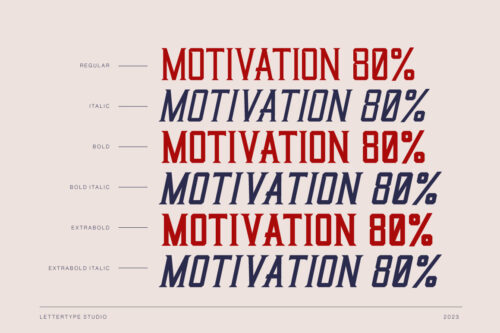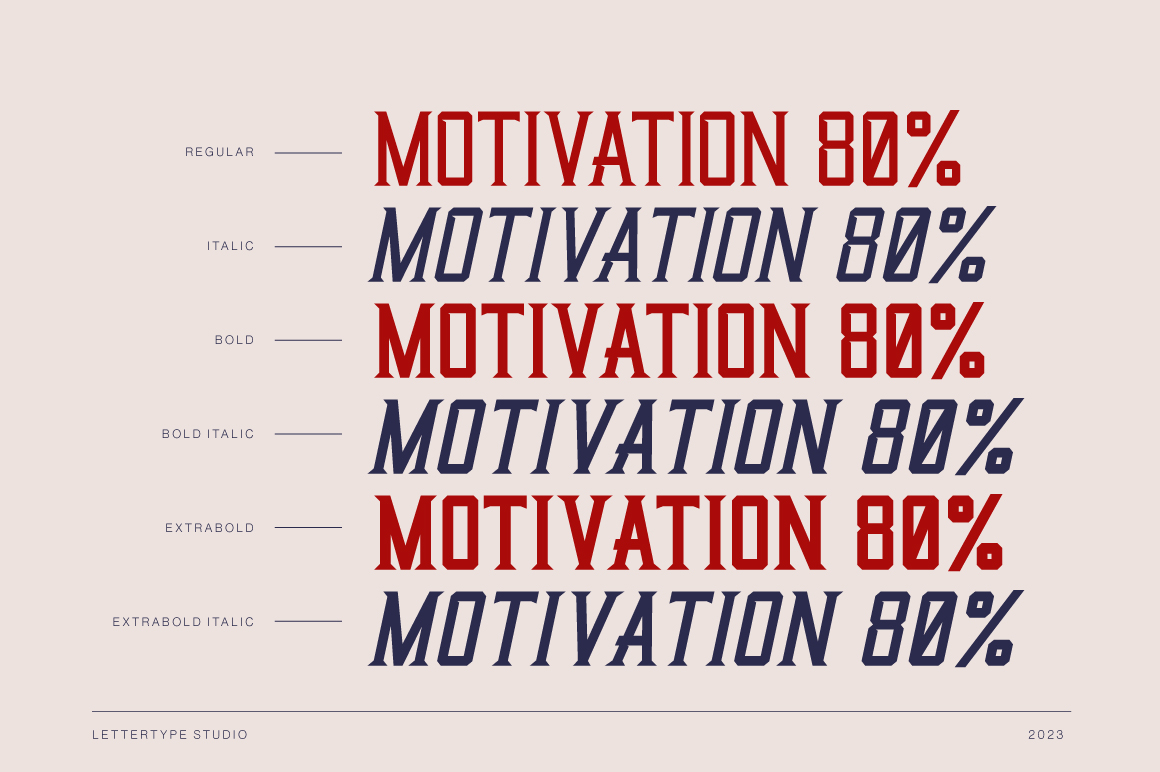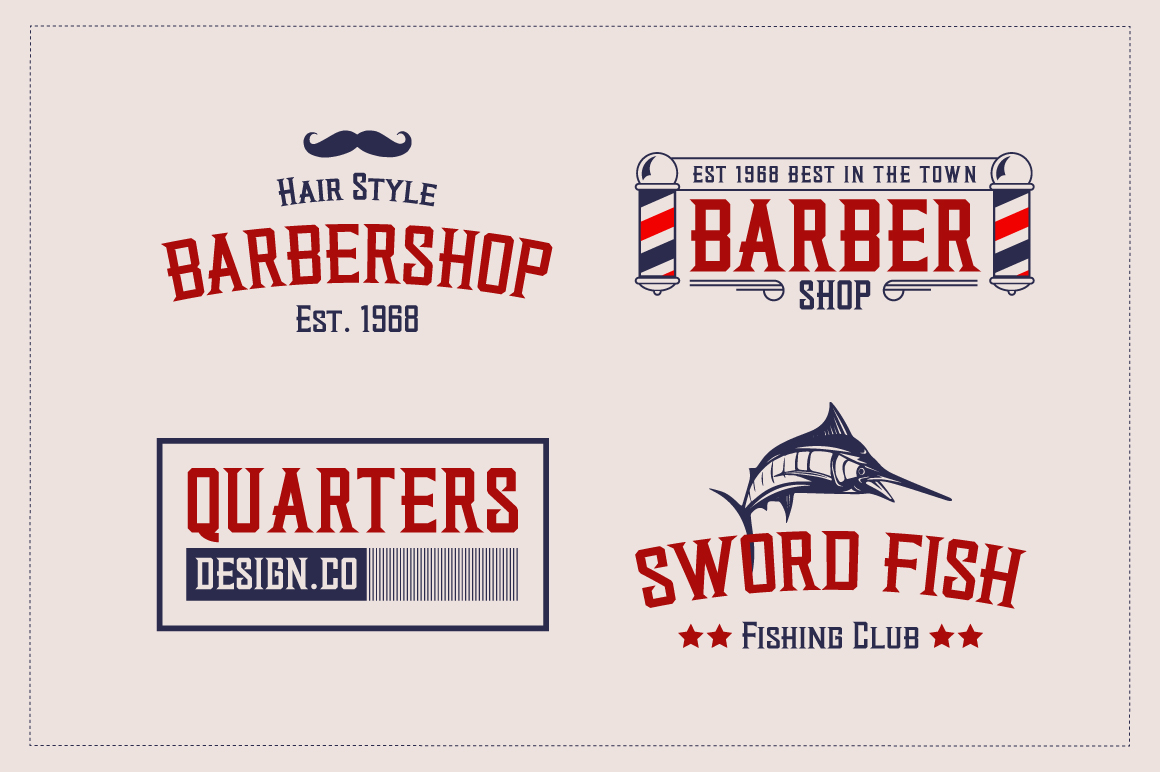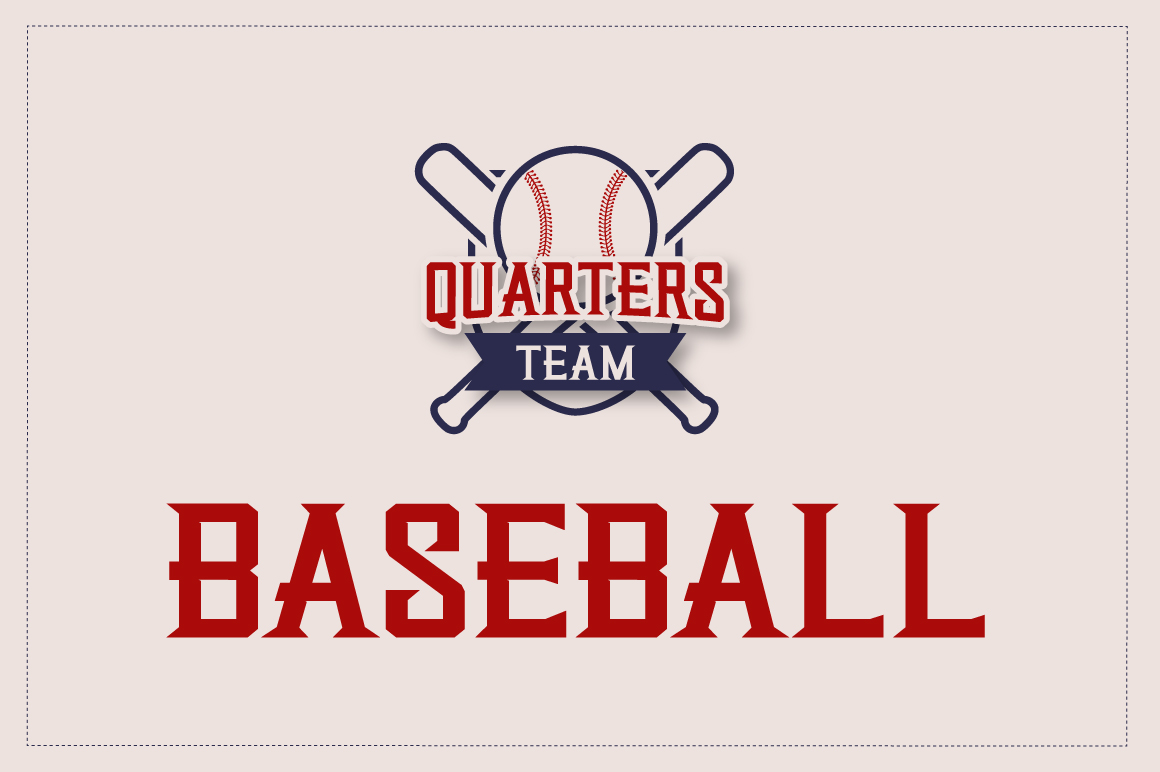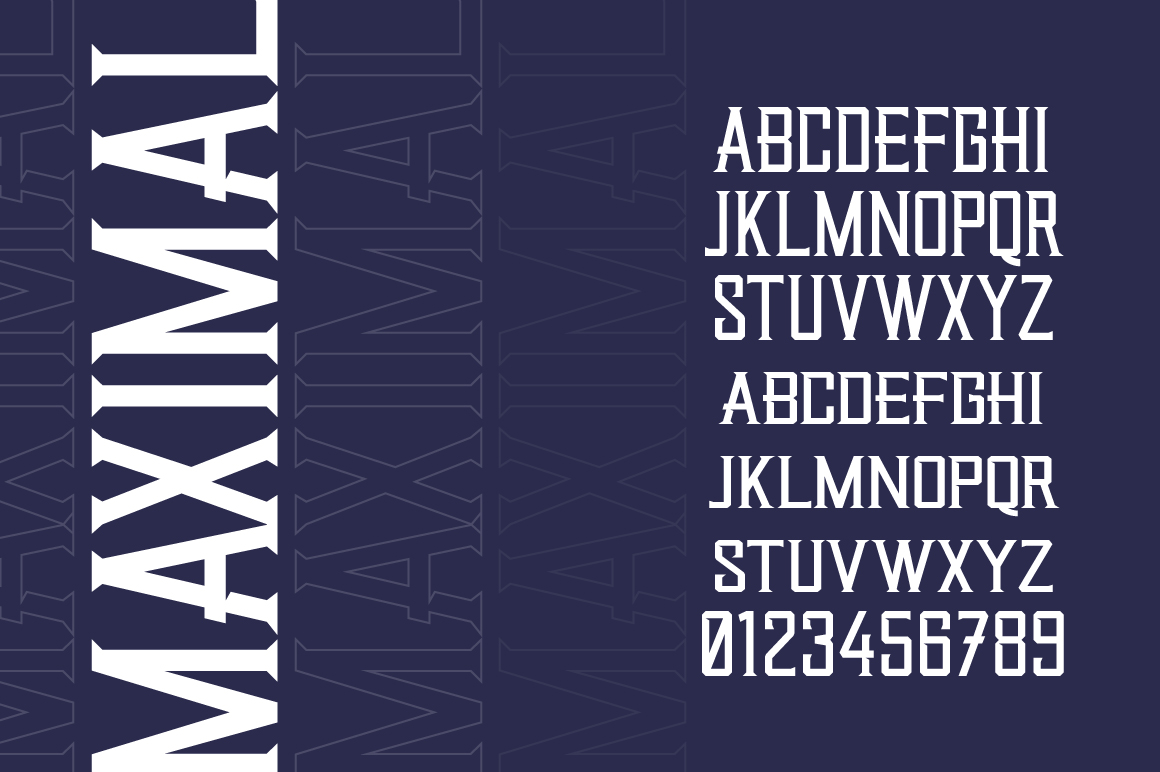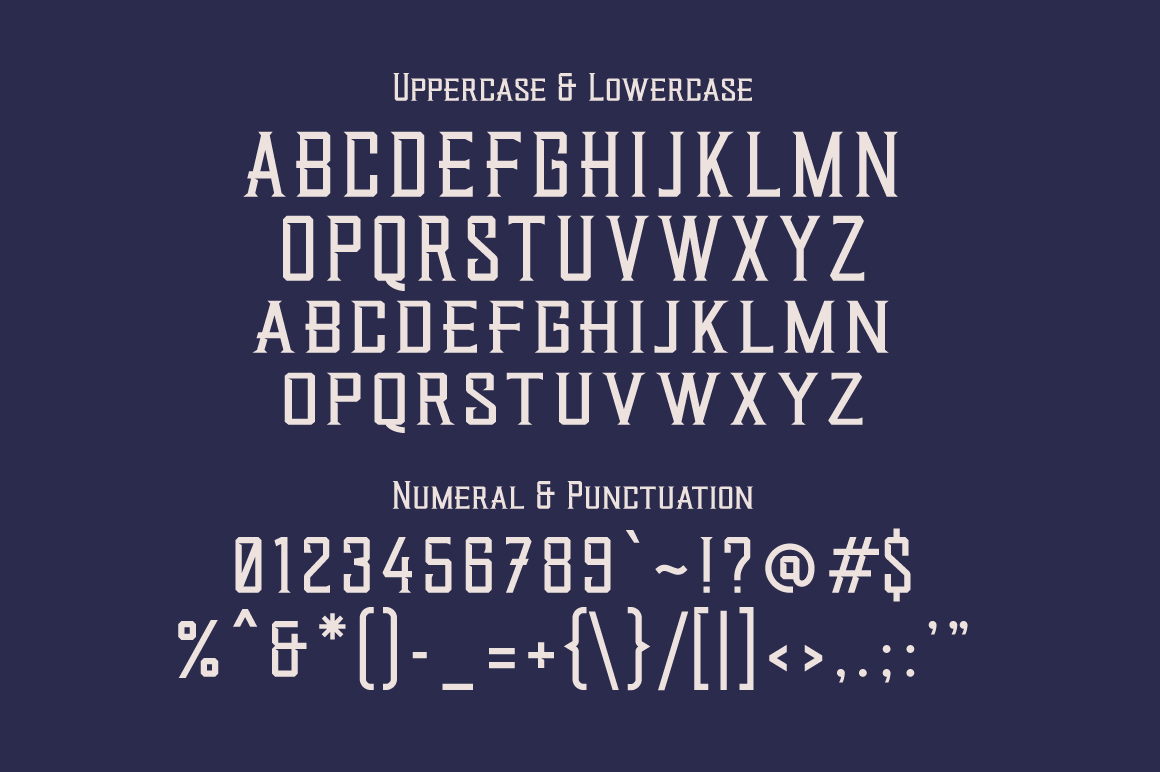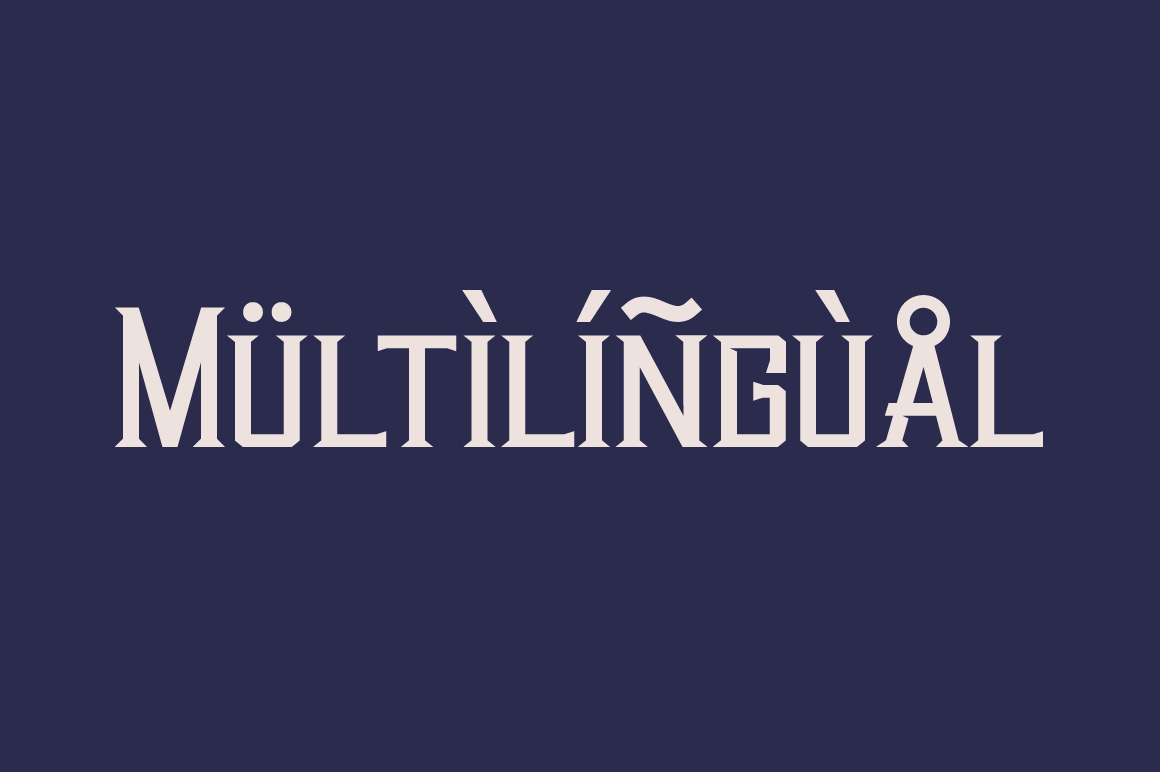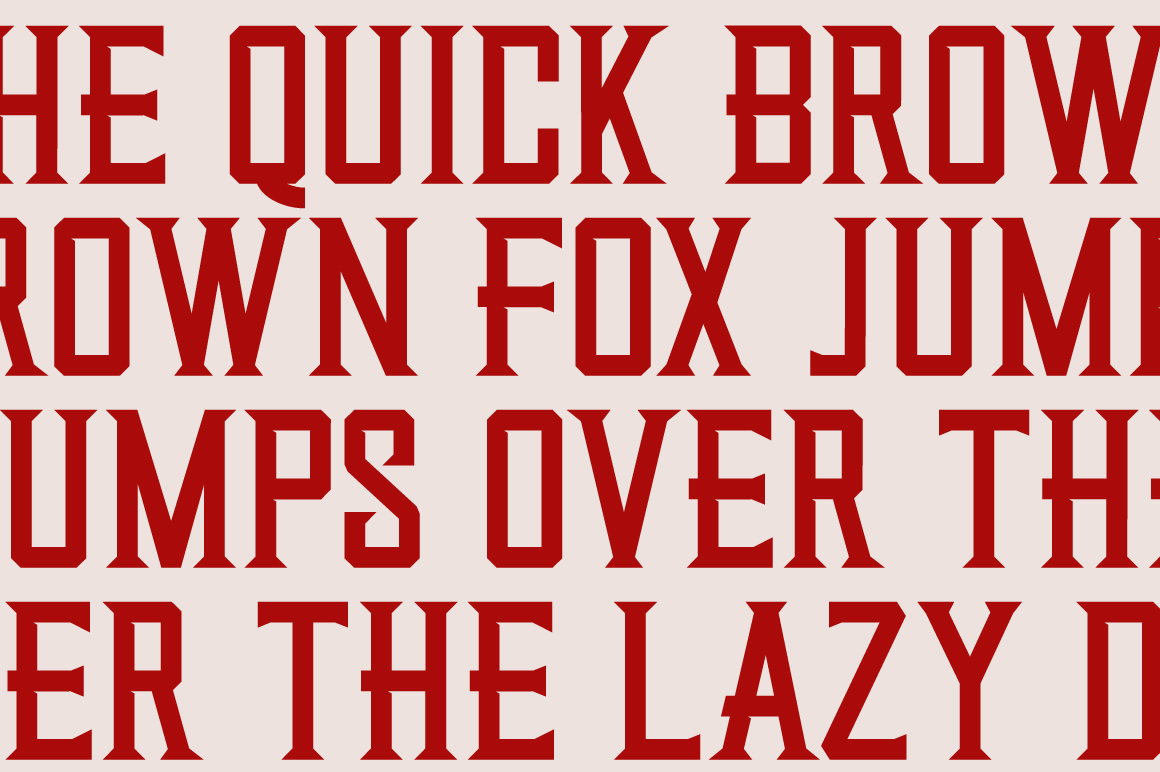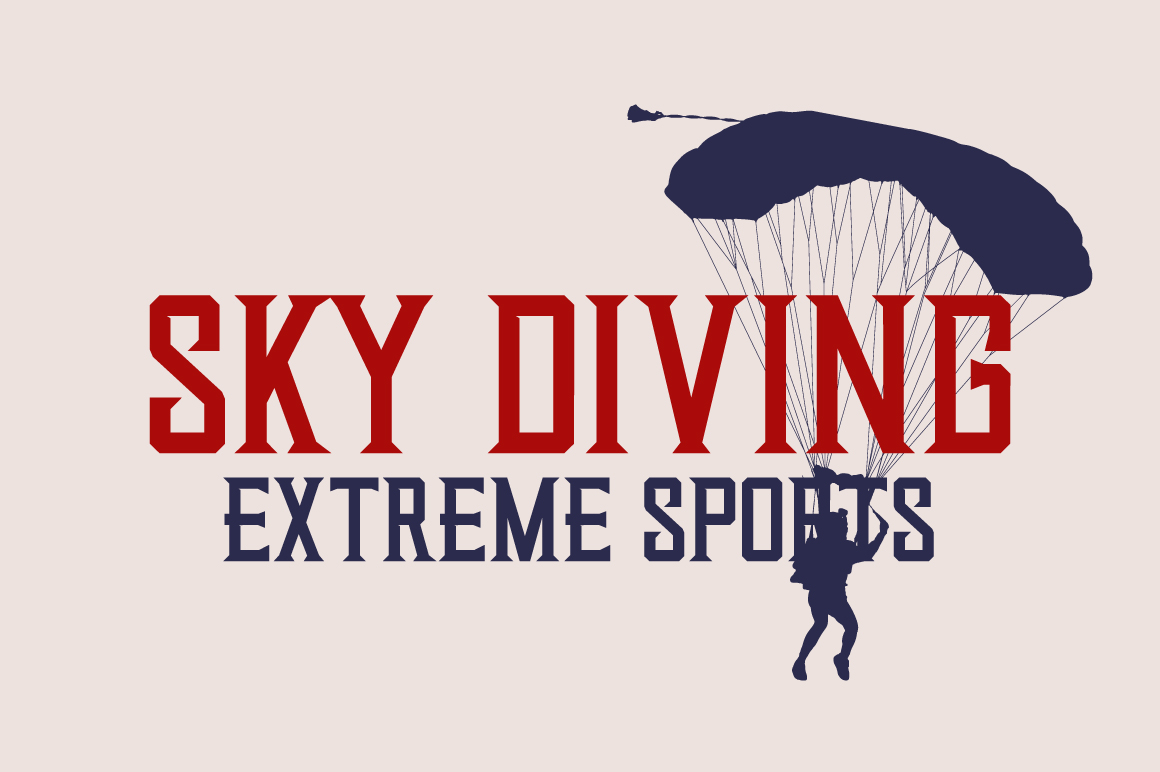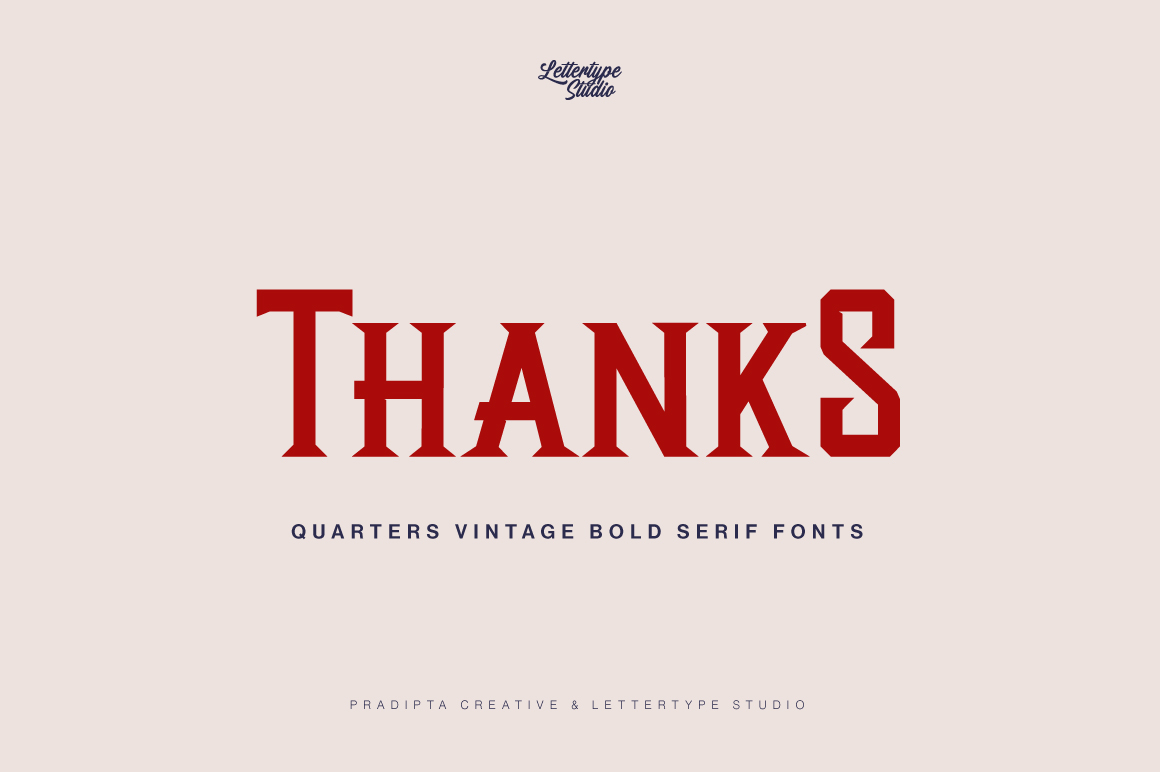
Quarters is a vintage bold serif font inspired by urban culture with strong characters. Welcome to the new bold world serif characters, that fonts will help for any of your projects.
This font will be perfect for your logo design, branding, clothing, sports graphics, posters, editorial titles, headlines, etc.